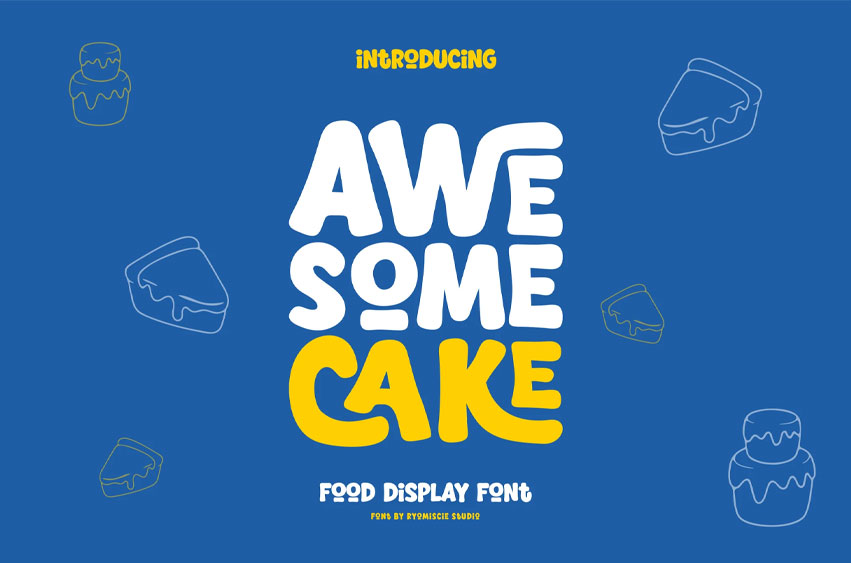
Awesome Cake Font
Awesome Cake Font is a bold and authentic display font. The font is suitable for any branding project, like logos, food, and many more.
Outstanding in a wide range of contexts.